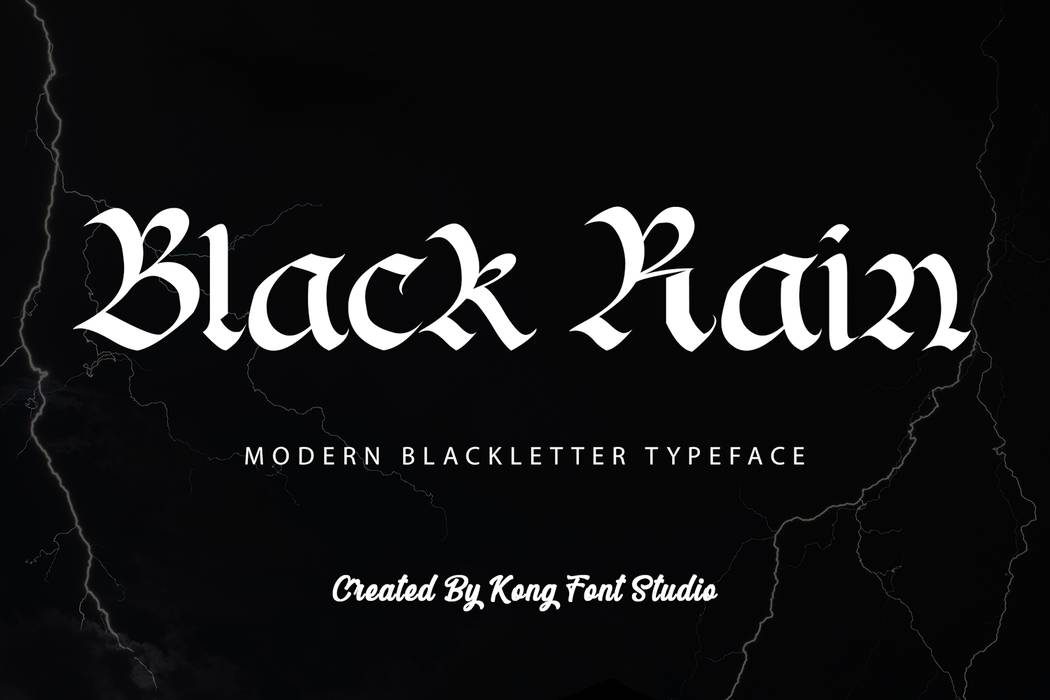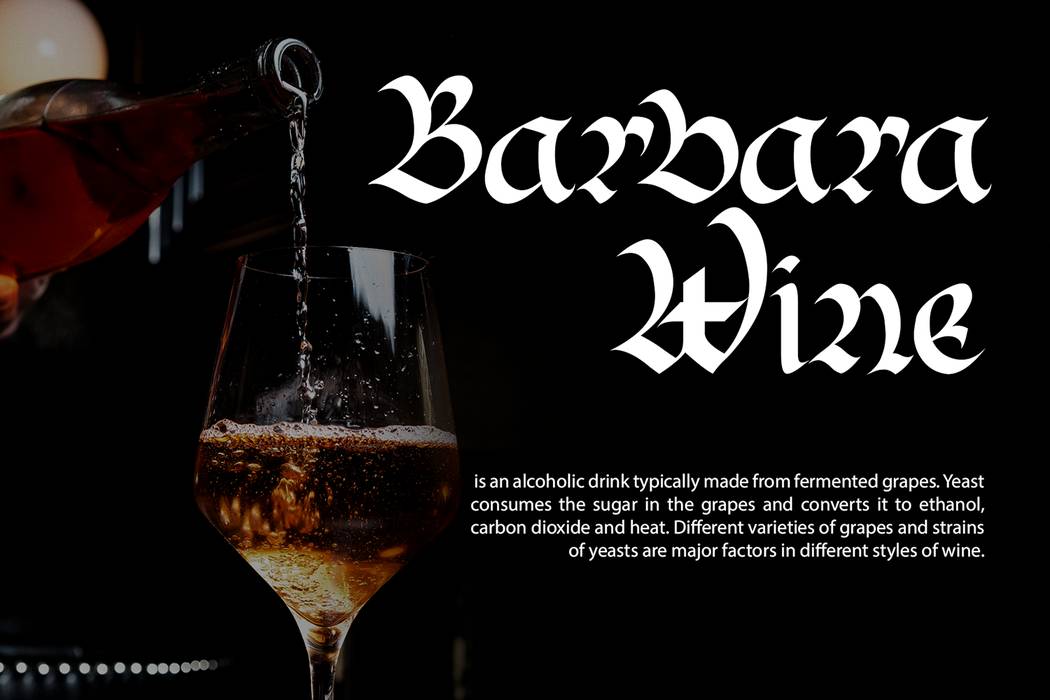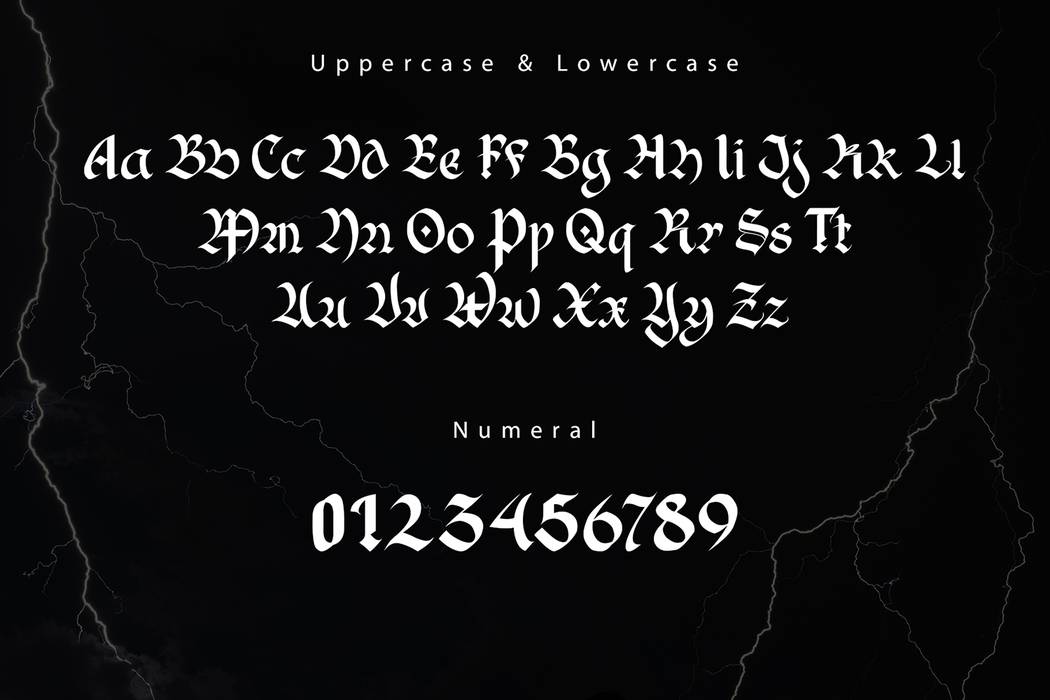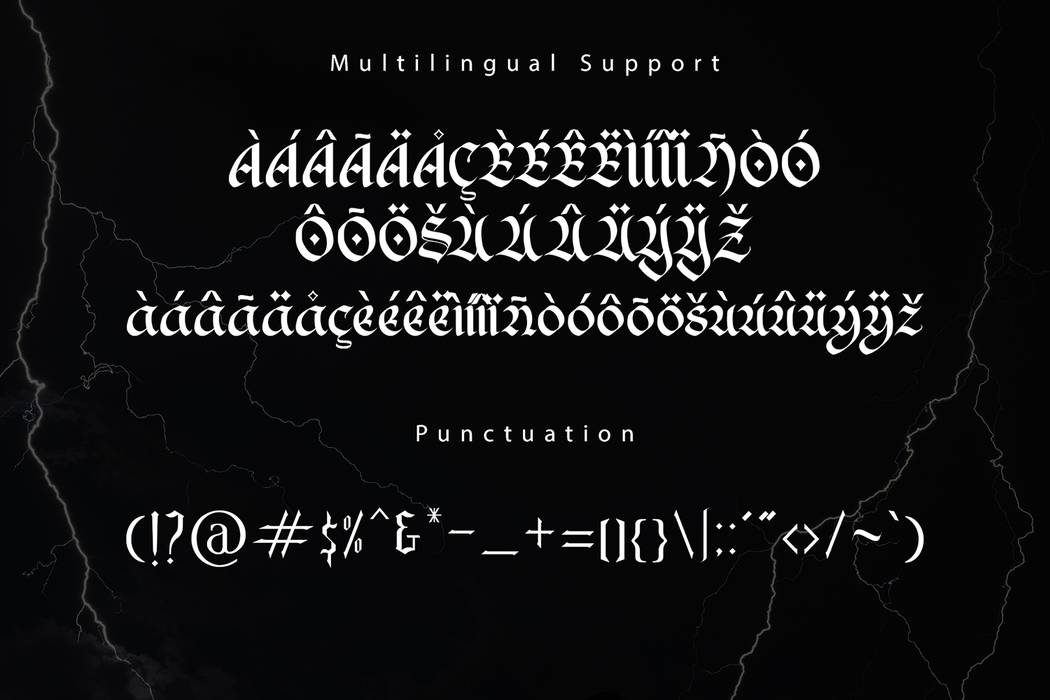
Black Rain is a bold blackletter serif font that features dramatic, sharp strokes and traditional gothic flair, evoking a medieval, vintage feel. Its strong presence and intricate details make it ideal for luxury branding, logos, and striking headlines that need a powerful, historic impact. This font works well in contexts where a dramatic and classical touch is desired, adding elegance and a sense of timeless mystique.
Black Rain Font
About Black Rain Font
| Font family | Black Rain Font |